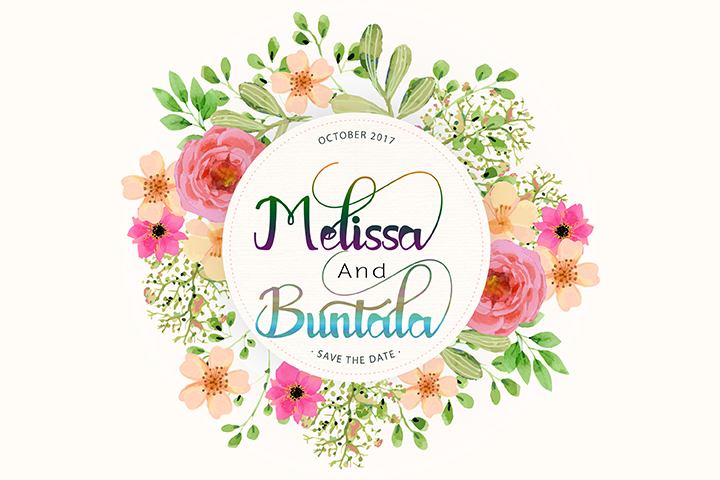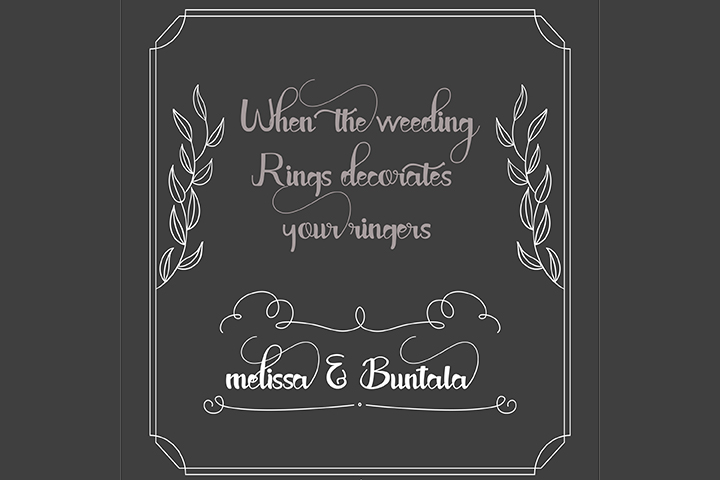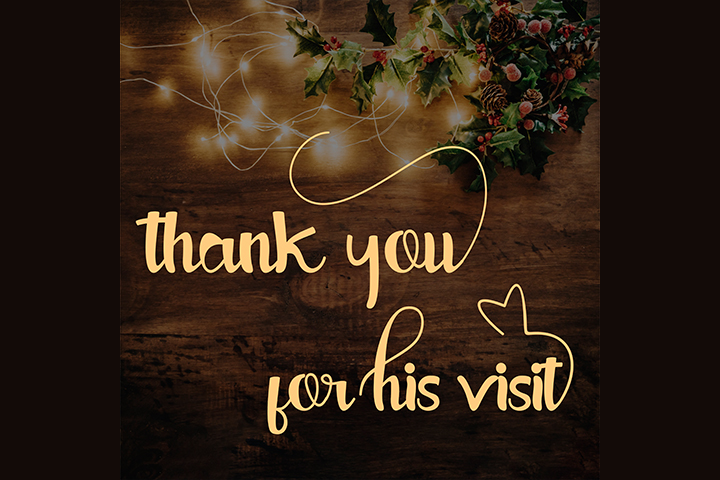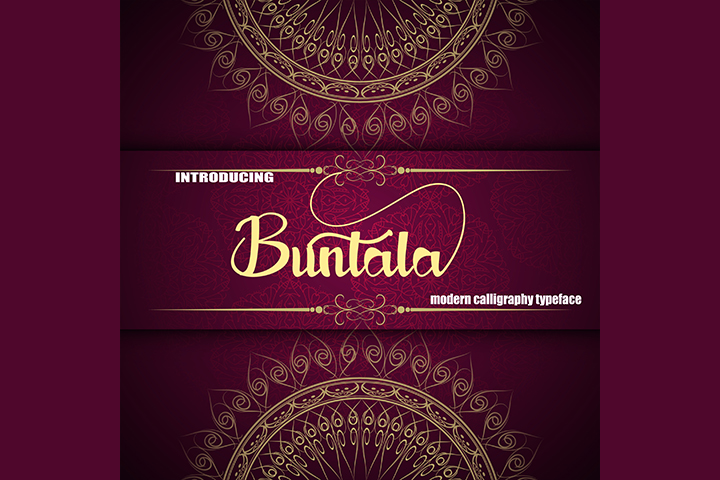
Buntala Font: A Beautiful Script with a Romantic Feel
In the world of typography, fonts play a crucial role in conveying emotions and setting the tone for a project. For designers and crafters looking for a script font that exudes romance and elegance, Buntala Font is an excellent choice. This stunning handcrafted script font is designed to add a touch of sophistication and whimsy to a wide range of projects, from wedding invitations and branding materials to digital content and more.
The Beauty of Buntala Font
Buntala Font is a beautiful script with a lot of movement and flow, giving it a romantic feel and look. Its elegant strokes and curves make it perfect for projects that require a touch of luxury and refinement. The font’s handcrafted nature ensures that each letter is unique, adding a level of personality and charm to your designs.
Key Features of Buntala Font
- Handcrafted with love: Each letter in Buntala Font is carefully crafted to ensure a unique and personal touch.
- Romantic feel and look: The font’s flowing strokes and curves give it a romantic and elegant appearance.
- Highly versatile: Use Buntala Font across a wide range of projects, from print materials to digital content.
- Elegant and sophisticated: The font’s luxurious feel makes it perfect for high-end branding and wedding-related projects.
Use Cases for Buntala Font
Buntala Font is an incredibly versatile font that can be used across various projects, including:
- Wedding invitations and stationery: Add a touch of romance and elegance to your wedding materials.
- Branding and packaging: Use Buntala Font to create luxurious and eye-catching branding materials.
- Digital content: Add a touch of sophistication to your blog posts, social media graphics, and more.
- Signage and display: Use Buntala Font to create stunning signage and display materials.
Tips for Using Buntala Font
To get the most out of Buntala Font, here are a few tips to keep in mind:
- Pair with contrasting fonts: Combine Buntala Font with a contrasting font to create visual interest and hierarchy.
- Experiment with colors: Try pairing Buntala Font with different colors to create a unique and eye-catching look.
- Use it sparingly: Use Buntala Font sparingly to add a touch of elegance and sophistication to your designs.
Buntala Font is a stunning handcrafted script font that is sure to add a touch of romance and elegance to your designs. With its flowing strokes, elegant curves, and luxurious feel, it’s perfect for a wide range of projects, from wedding invitations and branding materials to digital content and more. Whether you’re a designer or crafter, Buntala Font is an excellent choice for anyone looking to add a touch of sophistication and whimsy to their work.